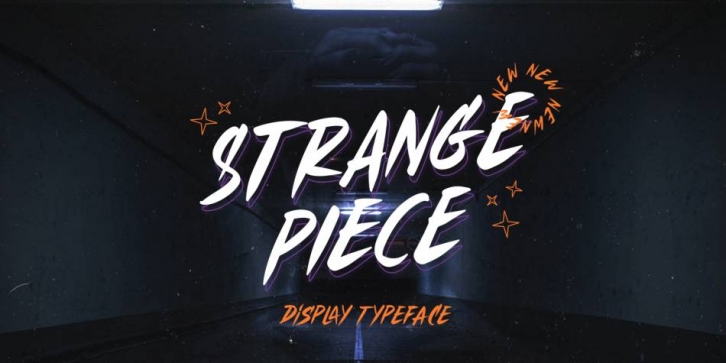
Strange Piece is a modern and playful typeface which is purposely made for headline, display or logotype. This type of font perfectly made to be applied especially in logo, and the other various formal forms such as invitations, labels, logos, magazines, books, greeting / wedding cards, packaging, fashion, make up, stationery, novels, labels or any type of advertising purpose.
uppercase & lowercase
numbers and punctuation
multilingual
alternates & ligatures
Font Family: Strange Piece Regular